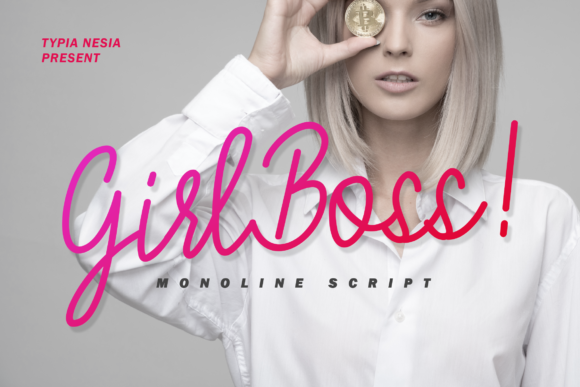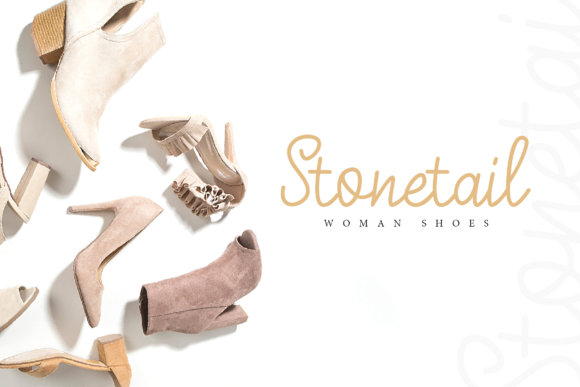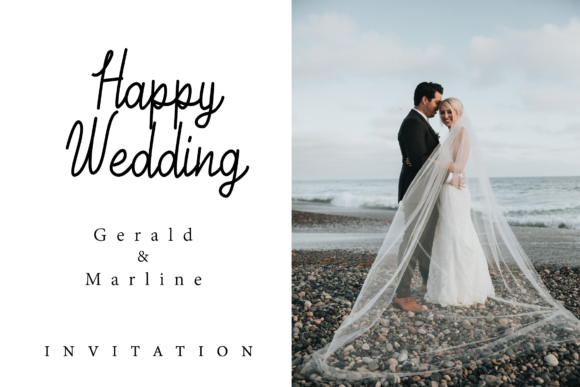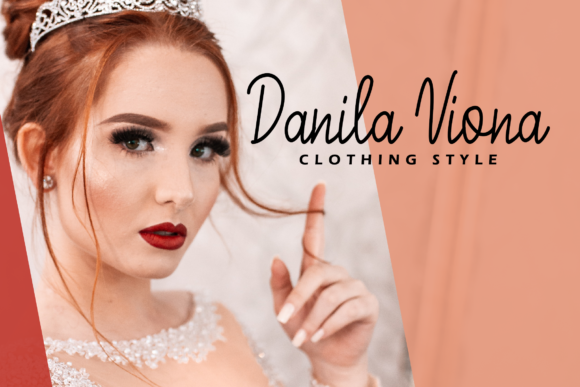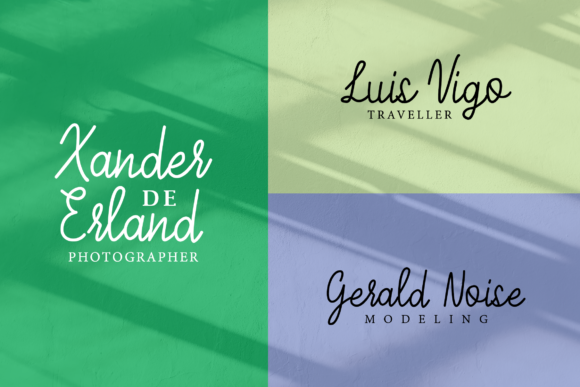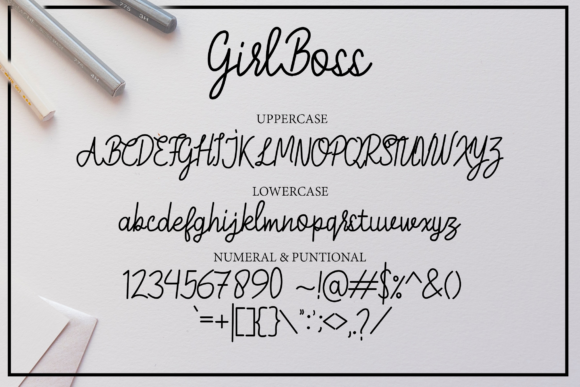
HomeScript FontsGirl Boss Font Script Fonts Girl Boss Font FacebookXPinterestWhatsApp Girl Boss Font Poster 2 Girl Boss Font Poster 3 Girl Boss Font Poster 4 Girl Boss Font Poster 5 Girl Boss Font Poster 6 About Girl Boss Font Girl Boss is a romantic and dynamic script font that will turn any design idea into a true standout! DOWNLOAD ON CREATIVE FABRICAThis font is sold and delivered by Creative Fabrica. Font Canyon may earn a commission if you buy through this link. People also explored Star Font Rainbow Font Almonds Script Mountain Jack Font Eminent Font Baby Ghost Font Posting Font Hunting Font Cheesecake Font 450 0 TagsGirl Boss Font Previous articleInk Scale FontNext articleBedebah Font LEAVE A REPLY Cancel reply Comment: Please enter your comment! Name:* Please enter your name here Email:* You have entered an incorrect email address! Please enter your email address here Website: Save my name, email, and website in this browser for the next time I comment. Personal Use Free The Shocker Personal Use Free Read more about this font Panaroe Personal Use Free Read more about this font Boby Personal Use Free Read more about this font Kanza Personal Use Free Read more about this font BLOG Best Fonts for YouTube Videos: Make Your Thumbnails Stand Out Best Fonts for YouTube Videos: Make Your Thumbnails Stand Out Choosing the right font can make a massive difference in how your YouTube videos perform.... Top 7 Google Fonts Alternatives for Faster and Privacy-Friendly Web Design (2025) Transform Your Website: Elevate Your Typography with 7 Best Web Font Generators Using Fonts in Digital Marketing: Tips to Strengthen Your Brand Identity